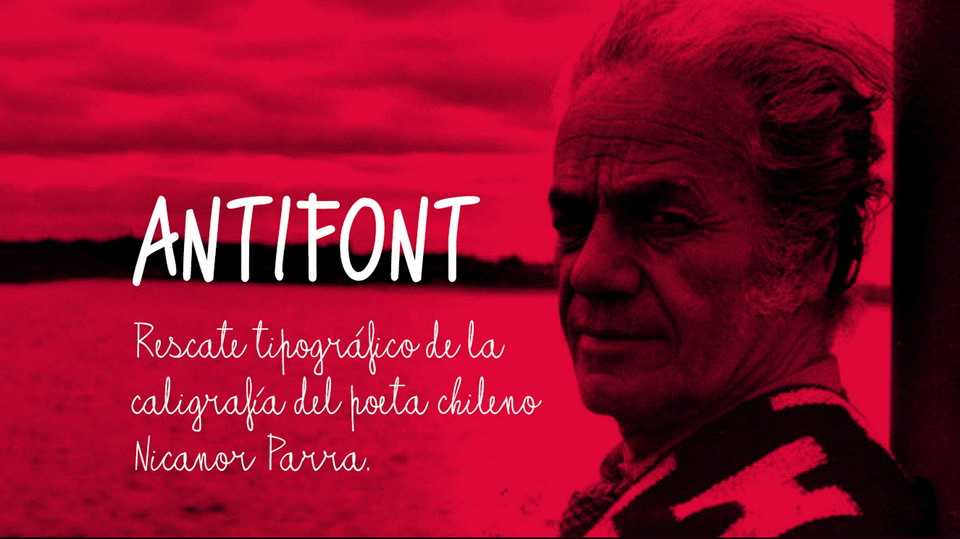
Download Antifont, a hand crafted typeface based on the handwriting of the mathematical physicist, better known as the antipoet Nicanor Parra.
Designer: Pablo Sepúlveda